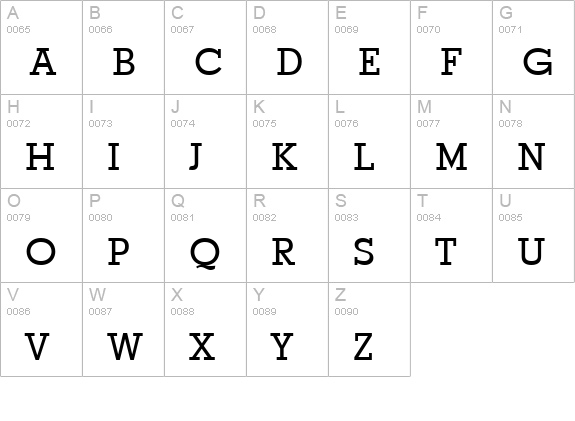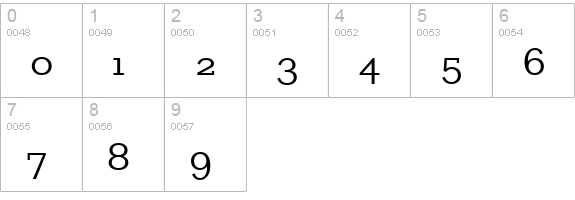
StymieSCTReg Font Details
StymieSCTReg font is a timeless and versatile typeface that exudes sophistication and elegance. Its clean lines and classic design make it suitable for a wide range of projects, from branding to editorial design. The font's balanced proportions and subtle details add a touch of refinement to any text. What makes StymieSCTReg font even more appealing is that it is available for free download at FontsMarket.com. This means that you can easily access this high-quality font and use it in your projects without any cost. Whether you are a designer, a writer, or a business owner looking to elevate your visual identity, StymieSCTReg font is a valuable addition to your toolkit. Download it today and add a touch of sophistication to your designs.